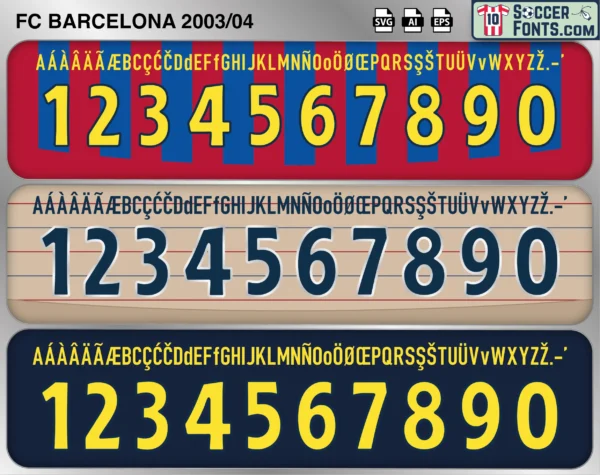
FC Barcelona 2003-04 Font UEFA Cup
The FC Barcelona 2003-04 Font UEFA Cup font is an editable soccer jersey lettering design in vector format inspired by the FC Barcelona UEFA Cup kit style used during the 2003-04 football season. This football font artwork is prepared for football shirt recreations, custom jersey projects, football kit mockups and sports graphic design workflows.
The 2003-04 season was unusual for FC Barcelona as the club competed in the UEFA Cup rather than the UEFA Champions League. Despite the disappointment of missing Europe’s premier competition, Barcelona entered the tournament with a talented squad featuring Ronaldinho, Xavi Hernández, Carles Puyol, Luis Enrique, Philip Cocu and Javier Saviola. The campaign coincided with significant changes at the club, including the arrival of Frank Rijkaard and the beginning of a major rebuilding process. Ronaldinho quickly emerged as the central figure of the team and helped restore confidence among supporters during an important transitional period.
The FC Barcelona 2003-04 Font UEFA Cup font became associated with Barcelona’s European journey during the first season of the Rijkaard era. The club advanced through several rounds and gained valuable experience while continuing to develop a squad that would soon challenge for the biggest trophies in football. Although Barcelona did not win the competition, the season played a crucial role in establishing the identity and momentum that would lead to future domestic and European success. FC Barcelona shirts from the 2003-04 UEFA Cup campaign remain popular among football shirt collectors because of their connection to Ronaldinho’s first season, the early stages of Barcelona’s revival and a rare chapter in the club’s European history. The FC Barcelona 2003-04 Font UEFA Cup font reflects a significant moment in the rebuilding of one of football’s greatest institutions.